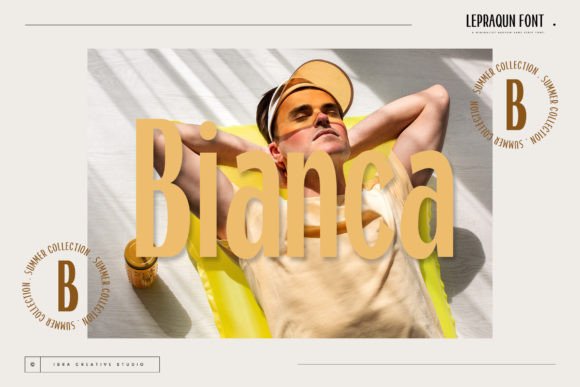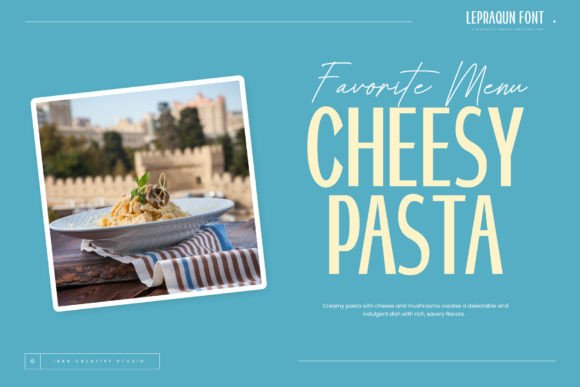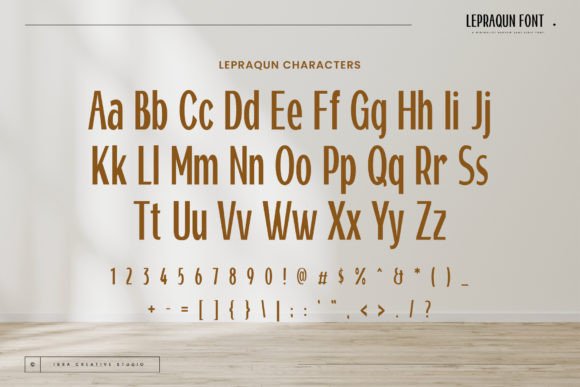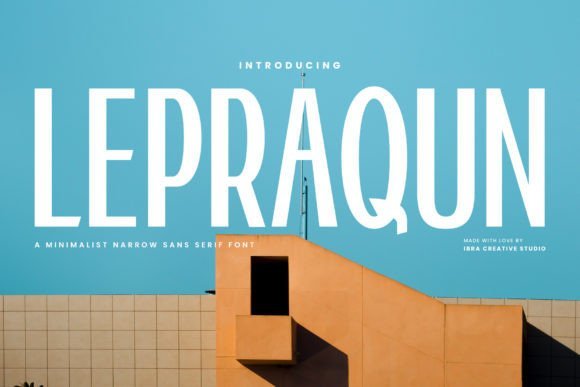
Introduction to Lepraqun Font
Lepraqun, a minimalist narrow sans-serif font, epitomizes simplicity and modern sophistication.
With its slender letterforms and clean lines, Lepraqun embodies a sleek aesthetic that is both contemporary and timeless This typeface offers a refined and space-efficient design, making it an ideal choice for projects that demand a sleek, minimalist appearance without sacrificing readability.